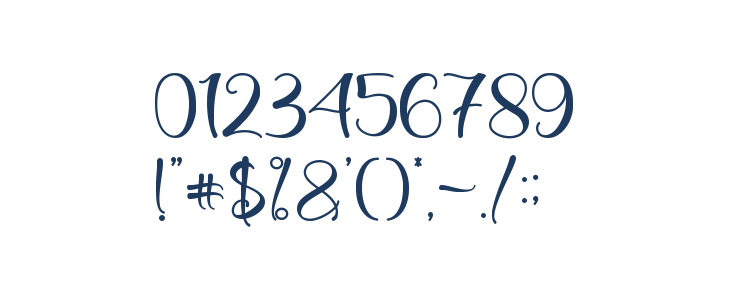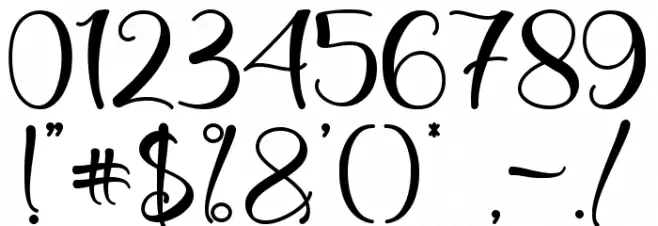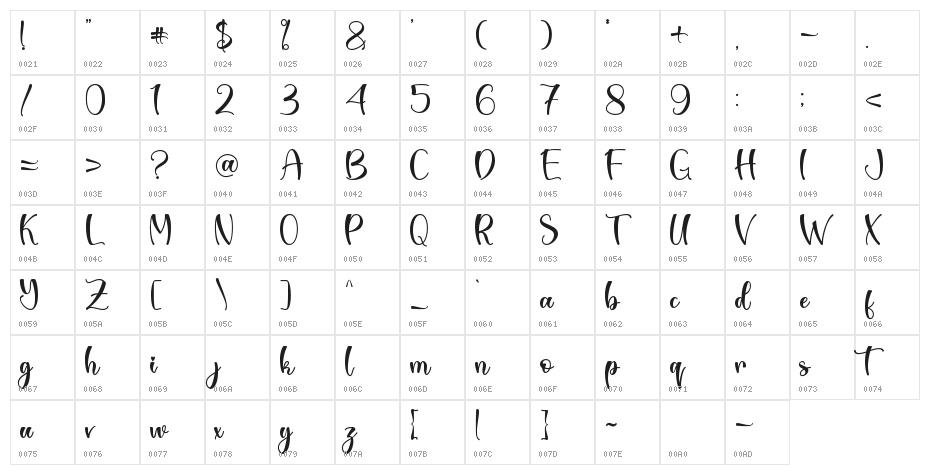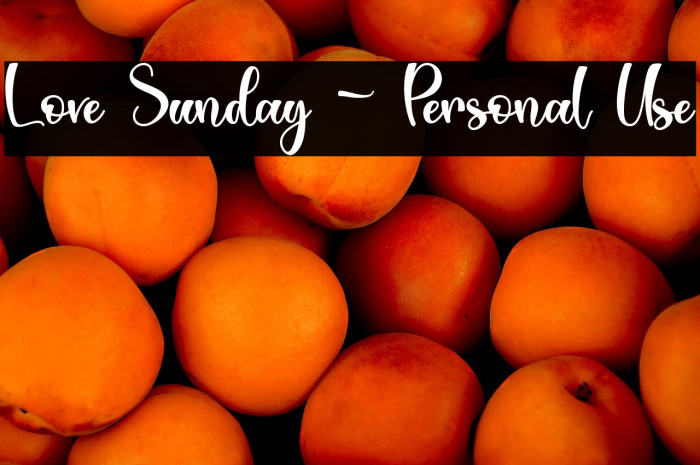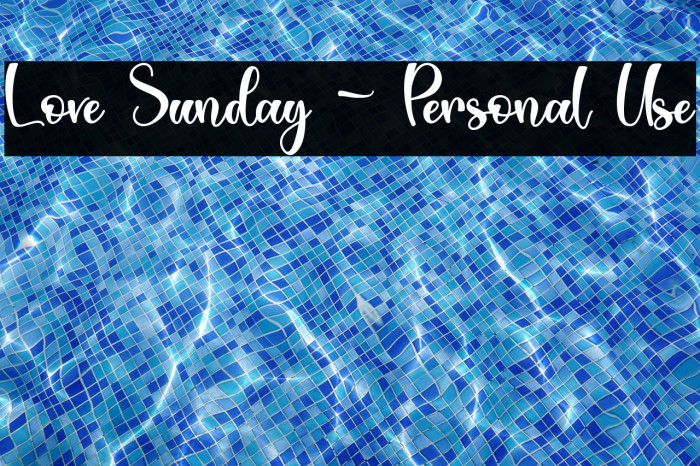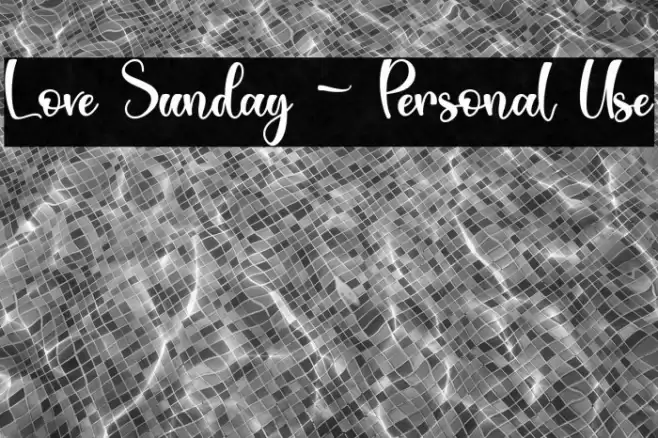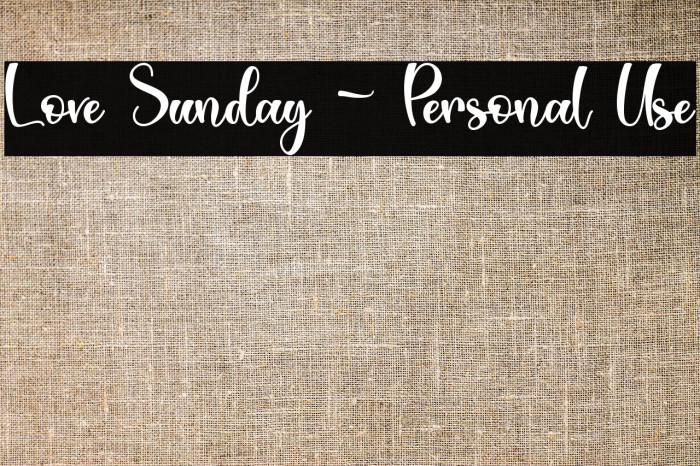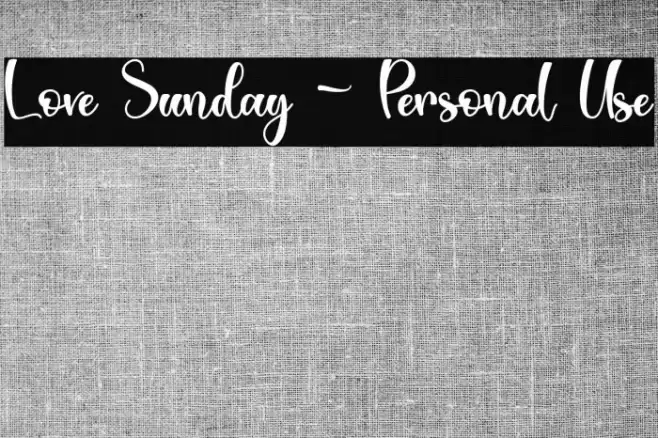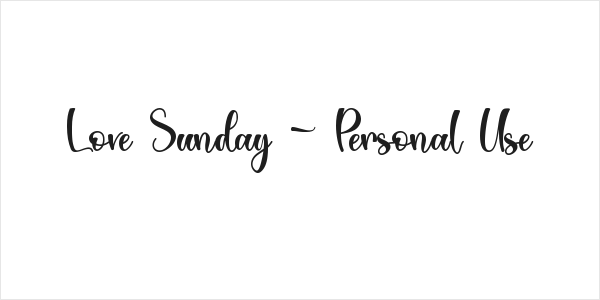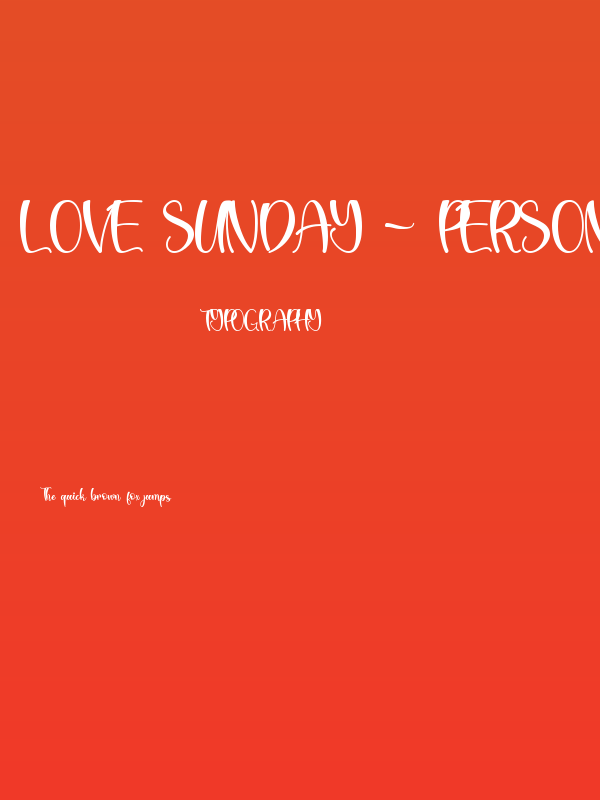
Love Sunday - Personal Use Font
Love Sunday - Personal Use Description
This font features a playful and whimsical script style with a handwritten appearance. The uppercase letters are bold and flowing, with a distinct loop and curl in their design, giving them a lively and energetic feel. The lowercase letters maintain a consistent style, with smooth curves and a slightly slanted orientation, enhancing the casual and friendly vibe. The numerals are rounded and maintain the same playful characteristics, making them easily legible. Special characters are creatively integrated, matching the overall aesthetic of the font. This font's unique style is perfect for adding a personal touch to any project.